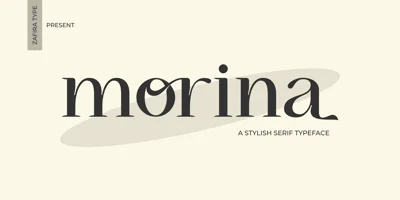
Morina Font
Morina Font is perfect for natural wellness brands, organic product packaging, botanical garden signage, eco-friendly fashion labels, herbal medicine marketing, nature documentary titles, forest conservation campaigns, and earth-conscious lifestyle branding.
This font is exciting because it captures the serene essence of natural beauty with organic elegance and botanical sophistication. Morina Font features flowing letterforms with nature-inspired curves that evoke the gentle rhythm of forest leaves and mountain streams, making it ideal for projects that require authentic natural character and environmental harmony.
The Morina Font family includes regular, light, bold, and organic variants, along with nature-inspired alternates and botanical ligatures that enhance its natural character. Each weight maintains the font's organic aesthetic while providing different levels of natural expression for various eco-friendly and wellness design applications.
Whether you're developing authentic wellness brands, creating compelling natural product materials, or designing environmental awareness campaigns, Morina Font delivers exceptional serenity and natural appeal. Its distinctive organic style makes it an excellent choice for designers seeking to add genuine natural beauty and environmental sophistication to their projects. The font's versatility extends from organic product packaging to wellness center branding, ensuring consistent performance across all natural applications. With its thoughtfully crafted letterforms and botanical proportions, this typeface provides professional results that connect with nature-loving audiences and establish harmonious brand presence with its unmistakable natural character and serene environmental elegance.